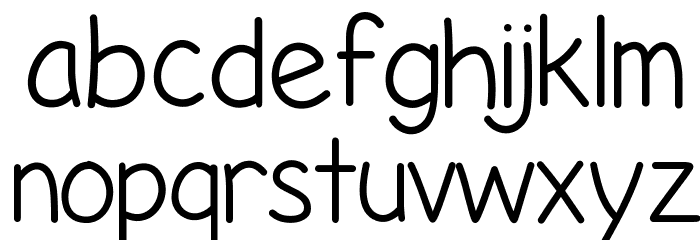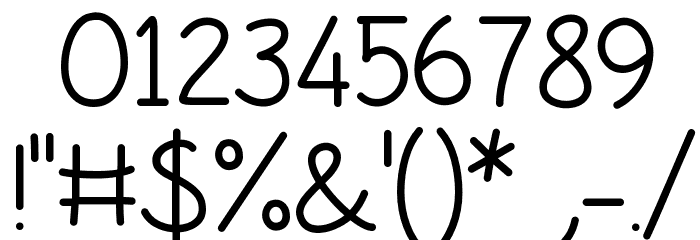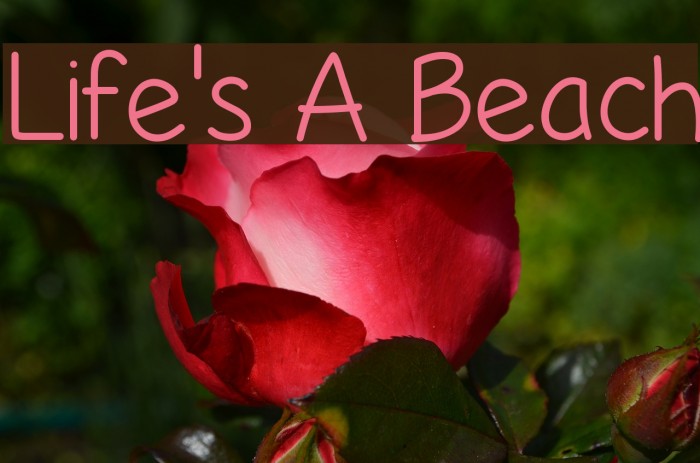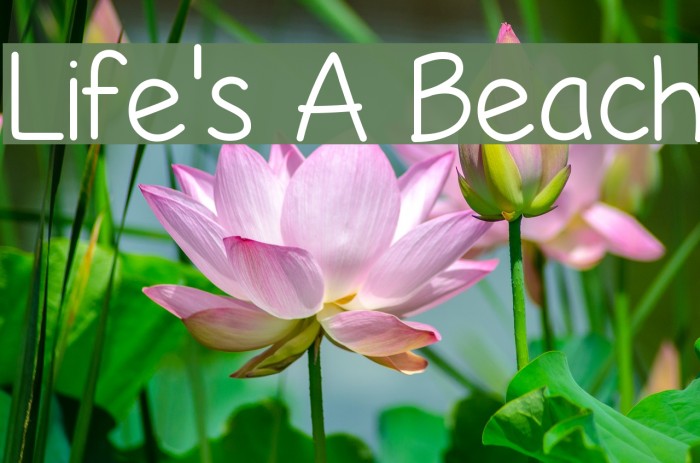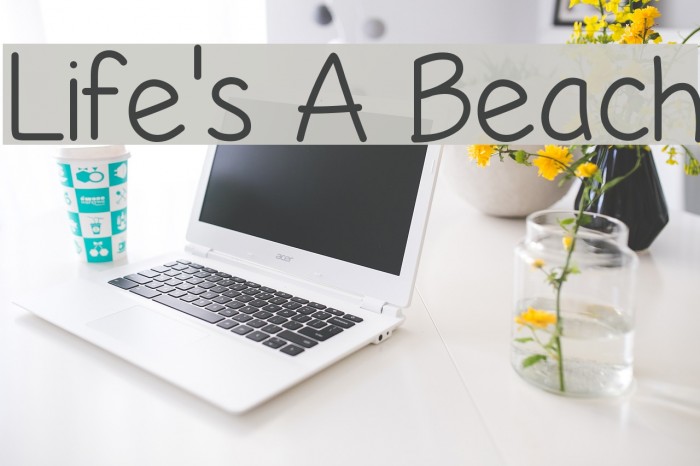
Life's A Beach Font
This playful and casual font features rounded, smooth lines that give it a friendly and approachable appearance. The characters are evenly spaced with a consistent stroke width, creating a harmonious and balanced look. The font's simplicity and clarity make it highly legible, while its informal style adds a touch of whimsy. It is versatile enough to be used in various contexts, from children's books to casual branding projects. The font's design is clean and modern, yet it retains a sense of warmth and personality, making it suitable for projects that aim to convey a sense of fun and creativity.
A playful, rounded font with smooth lines and a casual, friendly style.
- Proposed Projects: Ideal for children's books, casual branding, greeting cards, and playful invitations.
- Overall Style: Casual
- Use Case: Headlines, Logos, Informal Text